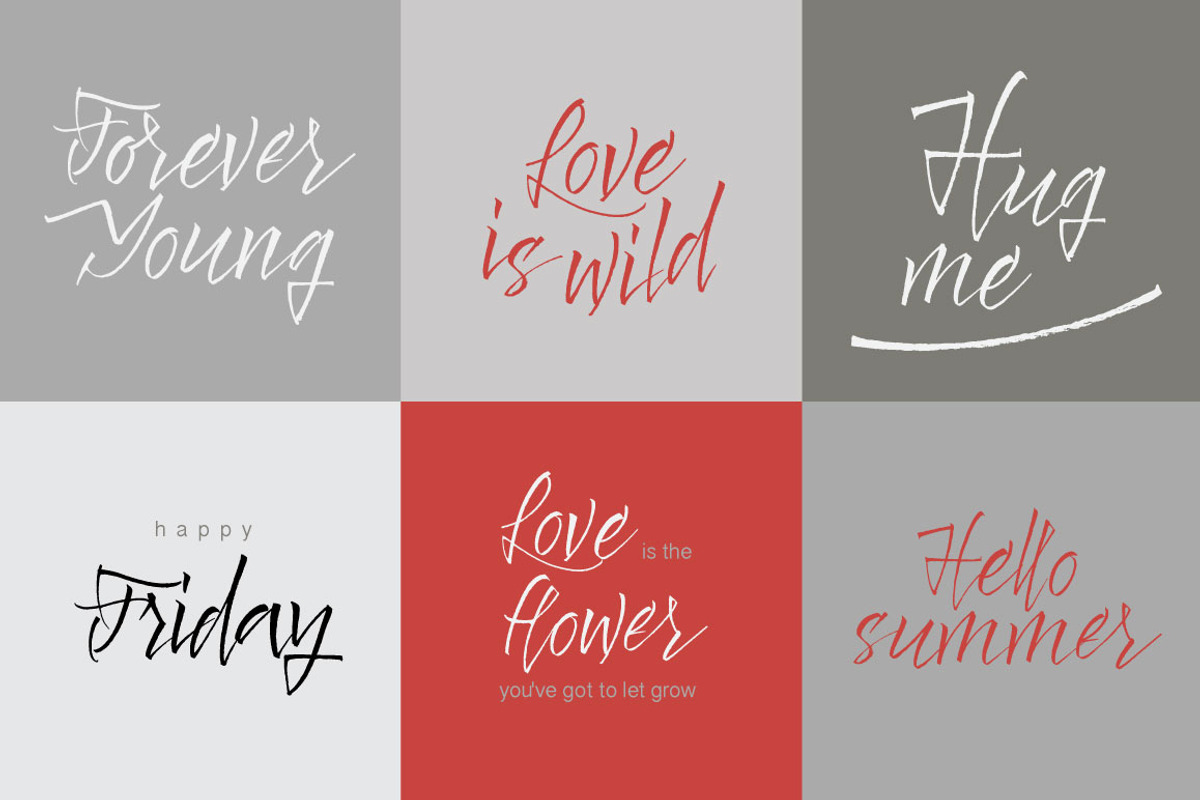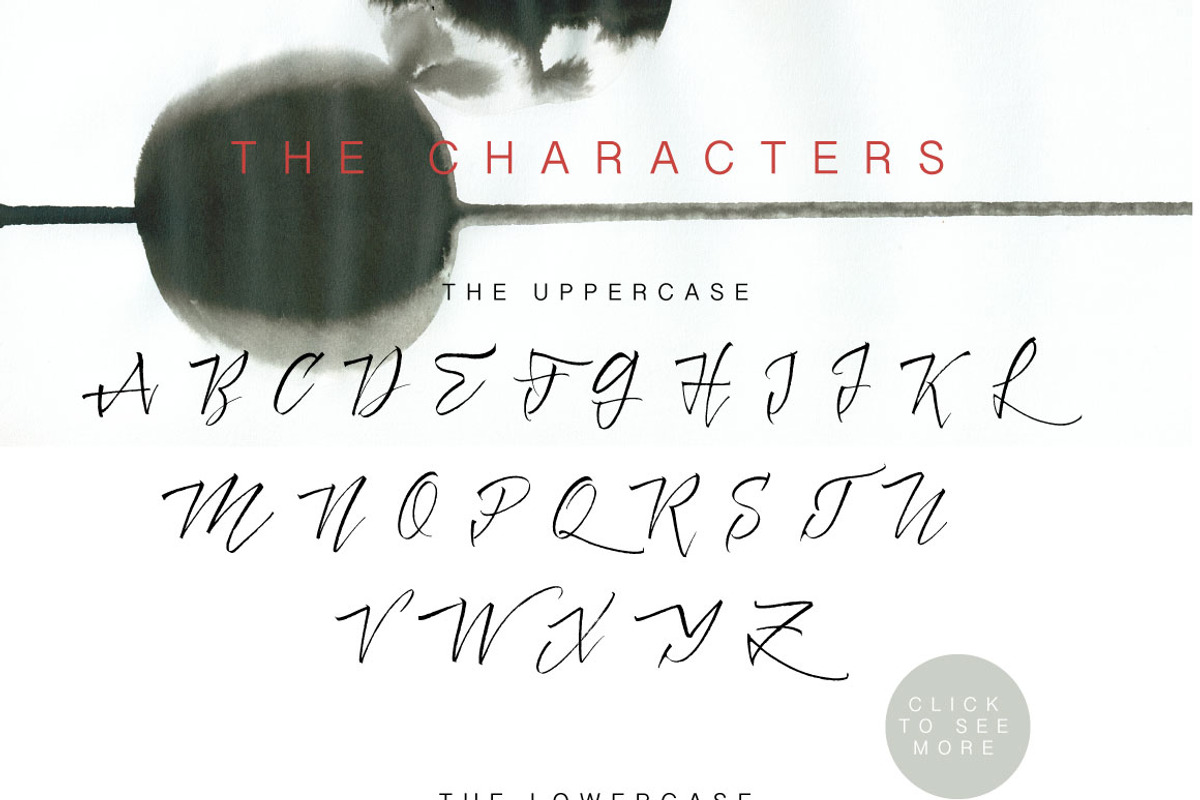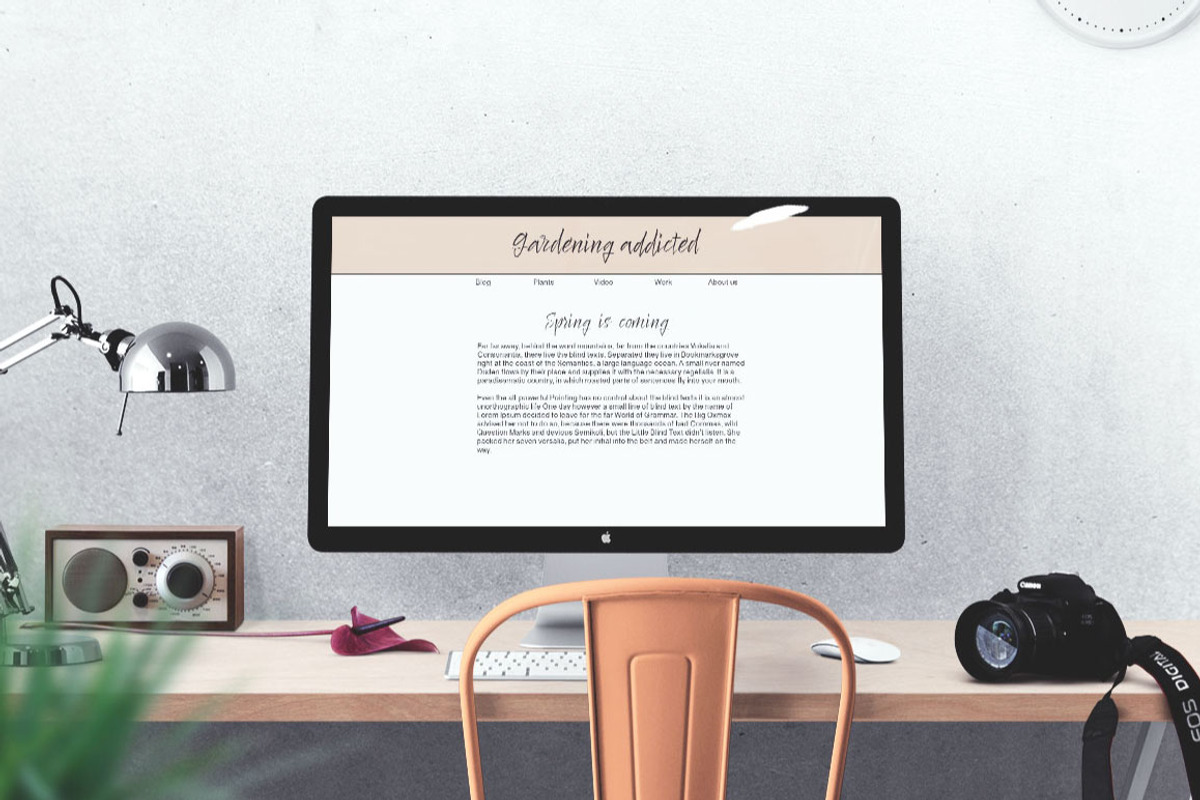
Spirit of Dance Font & Extras
Spirit of Dance Font & Extras by Vera Holera is a font selected for branding, posters, packaging, typography.
Why Spirit of Dance Font & Extras is worth a look
Spirit of Dance Font & Extras by Vera Holera fits naturally into Branding, posters, packaging, typography.